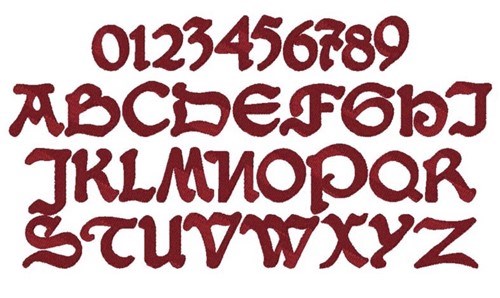
Unicorn Creatives is happy to present Castaway Embrilliance Embroidery Font - Decorative Script Style - BX font machine embroidery font which has Decorative script machine embroidery font showcasing playful and artistic letters, perfect for creative projects like beach bags. Available in BX font and Embrilliance format. included. If you would like to view more embroidery fonts and alphabets please search our embroidery fonts page.